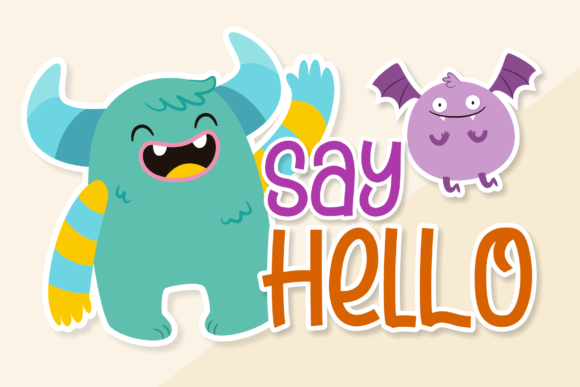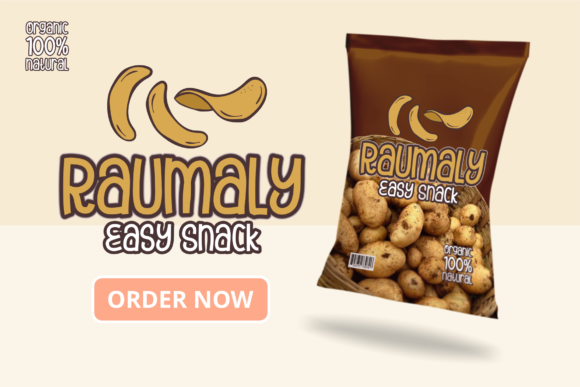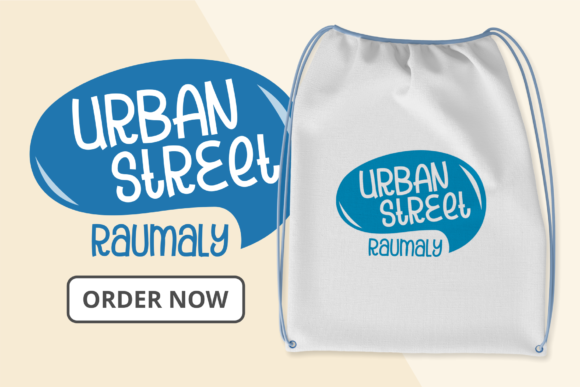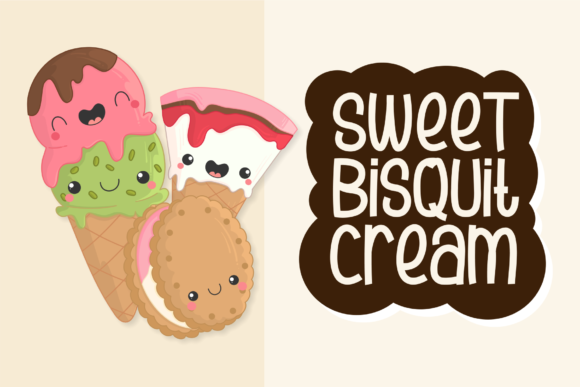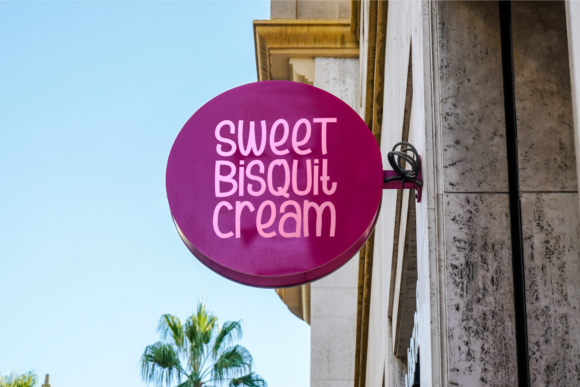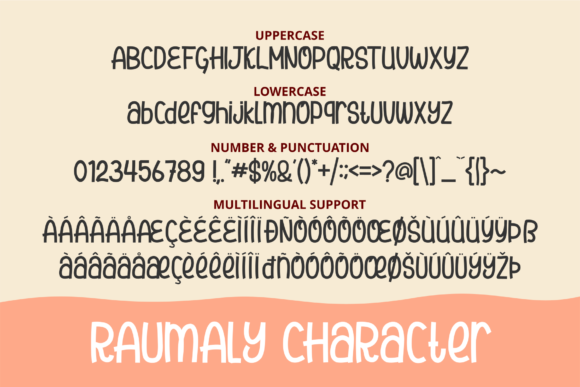
Introduction to Raumaly Font
Have you ever stared at a blank canvas, searching for the perfect font to bring your creative idea to life? You know, that moment when you’re envisioning a beautiful, handwritten Instagram post or a stunning DIY project, but the right font seems to be missing? For designers and creatives, finding the perfect font can be a game-changer, elevating our projects from good to great.
That’s where the Raumaly Font comes in – a high-quality, cute, and casual display font that exudes an incredibly friendly feel. With its unique design, Raumaly Font is perfect for adding a personal touch to your creative projects, whether you’re working on a design for social media, a calligraphy script for a DIY project, or any other high-quality design resource.
Key Features of Raumaly Font
- High-quality design: Raumaly Font is a professional font suitable for creative projects that require a sophisticated look.
- Transparent background: This font has a transparent background, making it easy to use in various design elements.
- High-resolution design: Raumaly Font is designed with high-resolution in mind, making it perfect for use in print and digital media.
- Unique characteristics: This font features a unique blend of modern and elegant styles, making it an ideal choice for designers looking for something distinctive.
Honest Review: Raumaly Font
I recently had the chance to work with the Raumaly Font, and I must say it’s a great addition to any designer’s toolkit. As a design enthusiast, I appreciate high-quality fonts that can elevate a creative project to the next level.
- ✨ High-quality design: The Raumaly Font boasts clean lines, beautiful typography, and a transparent background that makes it perfect for any design project.
- ✨ Versatile: This font is ideal for a wide range of creative projects, from logos to typography-based designs, and even web design.
While the Raumaly Font is a great asset, I do have a few minor complaints. ⚠️ For one, the font might not be suitable for projects that require a lot of bold typography, as it can sometimes appear too delicate. Additionally, the font’s transparent background can sometimes make it difficult to work with, especially when combined with complex design elements.
Overall, I’m thoroughly impressed with the Raumaly Font. Its high-quality design, versatility, and free download make it an excellent addition to any designer’s toolkit. With a few minor tweaks, this font could be perfect for even the most demanding design projects.
Raumaly Font is ideal for creating high-quality designs, such as logos, brochures, and business cards. Use it in your creative project to add a unique touch and make it stand out. The font is also great for presentations and reports, as it adds a professional and modern touch.